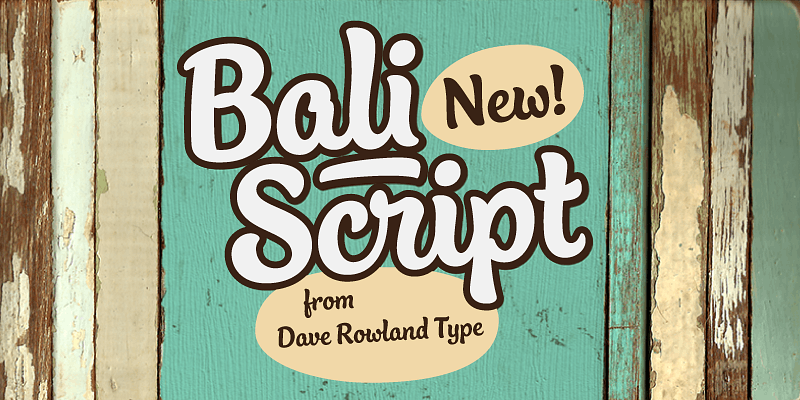
Bali Script Font Free Download is a beautiful, flowing script typeface inspired by the relaxed elegance of tropical destinations and hand-lettered calligraphy. With its smooth curves, graceful swashes, and natural rhythm, Bali Script is perfect for branding, wedding invitations, social media graphics, greeting cards, and lifestyle packaging.
This font exudes warmth and sophistication, making it ideal for designs that aim to evoke beauty, calm, and a personal touch. Whether you're crafting a romantic headline or an elegant logo, Bali Script Font adds a refined, handwritten feel to any creative project.